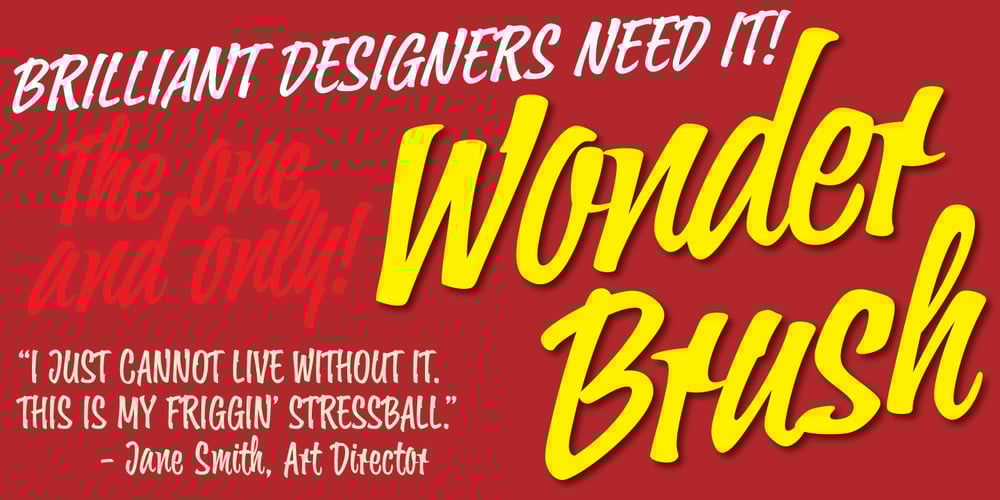
Wonder Brush Font Family was designed by Friedrich Poppl, Patrick Griffin, Kevin Allan King and published by Canada Type. Wonder Brush contains 1 styles and family package options. Wonder Brush is a display typographer’s guilty pleasure. It’s one of very few fonts ever made that can take intense abuse and still look natural. Partly based on a 1969 Friedrich Poppl design called Poppl Stretto, but considerably fused with ideas found in interwar magazine ad lettering and signage, Wonder Brush caters to the idea that most graphic designers would rather use design elements they can enjoy. When you spend your days being “challenged” and “creatively tested” and “communicating the message,” you can definitely use a little bit of playtime. And this font gives you just that, playtime on the job. Wonder Brush appears to be a straightforward narrow upright brush script. But it really is made of malleable rubber. Take it into a program like Adobe Illustrator, set something, stretch or squeeze, shear or warp, slant or transform… just play with it like they used to do in the 70s and 80s. You will soon discover that this font really is a big old top hat, and it’s up to you and your mischief to pull rabbits or geese out of it. A single font that allows you to emphasize content or manage space mechanically without affecting the integrity of the type setting. And if your playtime includes fiddling with OpenType features, you’re in for a bonus treat: Wonder Brush comes with over 800 characters, including a lot of alternates and extended language support. So tweak away until your eyes cry with joy. The only rules are the ones you set, and even those are meant to be broken.